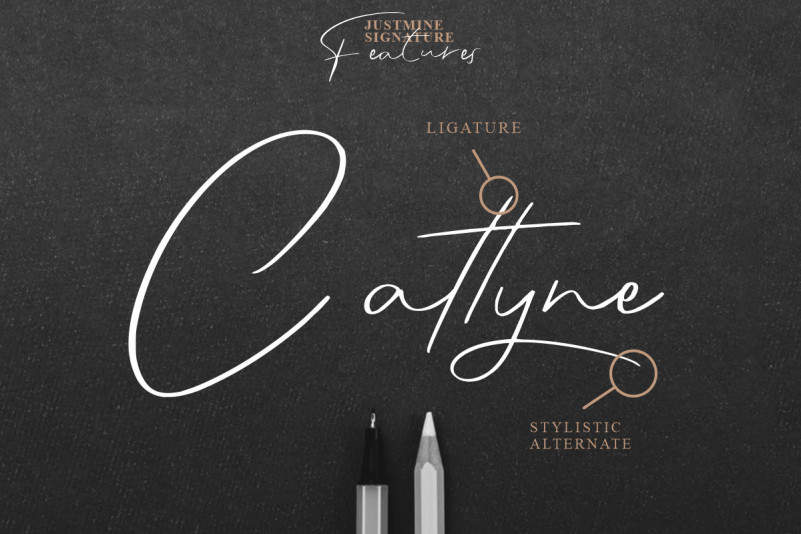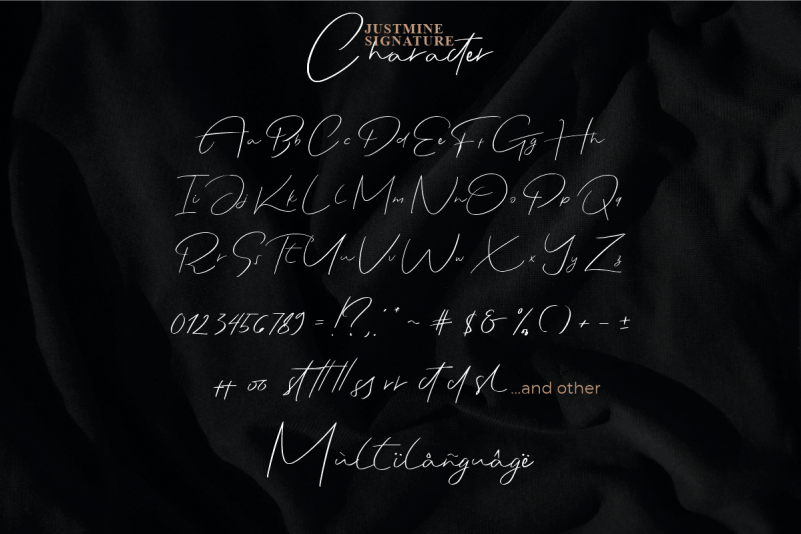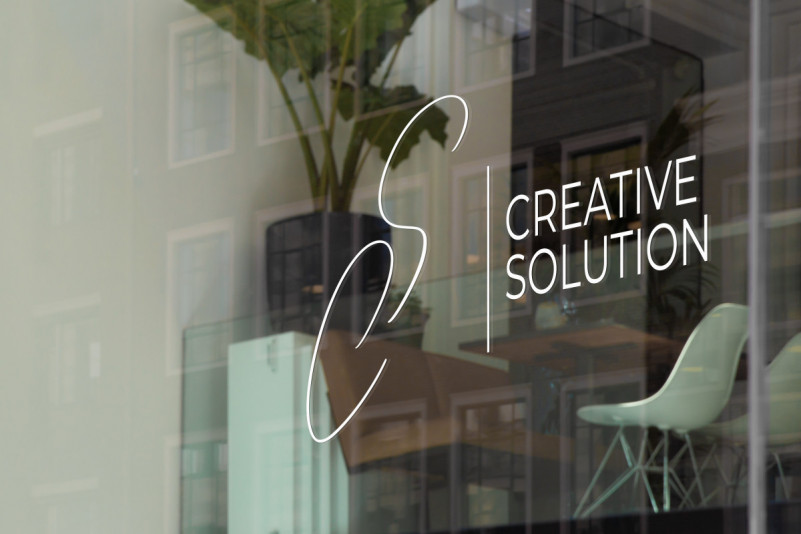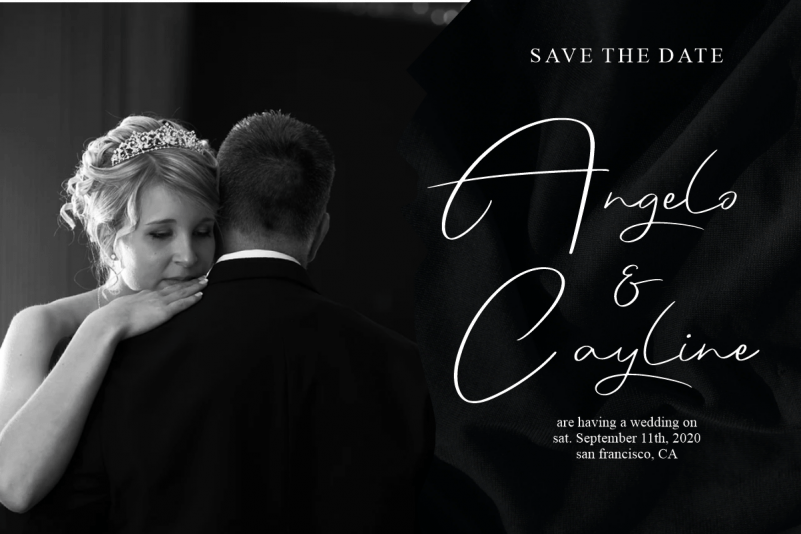
Justmine Signature Font
Justmine Signature Font is a signature style font that is casual and easy to read. Luxurious and premium looking fonts. This signature font is perfect for, watermarks, branding, business, business cards, product logos, etc.
Justmine Signature Font is perfect for branding projects, logos, wedding designs, social media posts, advertisements, product packaging, product designs, labels, photography, watermarks, invitations, stationery, and any project that requires a sense of handwritten signature.